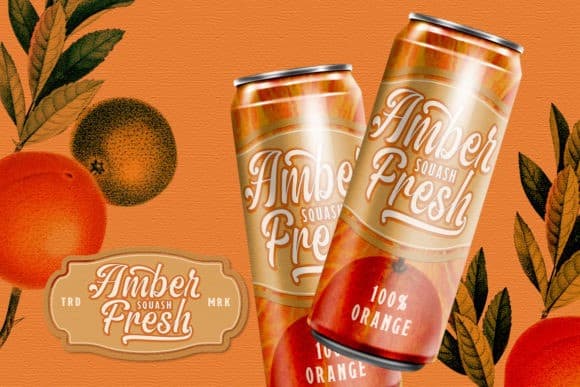
The Amberton Script Font
It’s a bold handmade font of beautiful bold typeface with an authentic touch. This font has unique swashes, inspired by classic floral ornaments. Another thing that make this font even more unique is this font has total 290 alternates which you can play around and creates beautiful lettering in a sec.
Perfect to be applied especially in logo, and the other various formal forms such as invitations, labels, logos, magazines, books, greeting / wedding cards, packaging, fashion, make up, stationery, novels, labels or any type of advertising purpose.